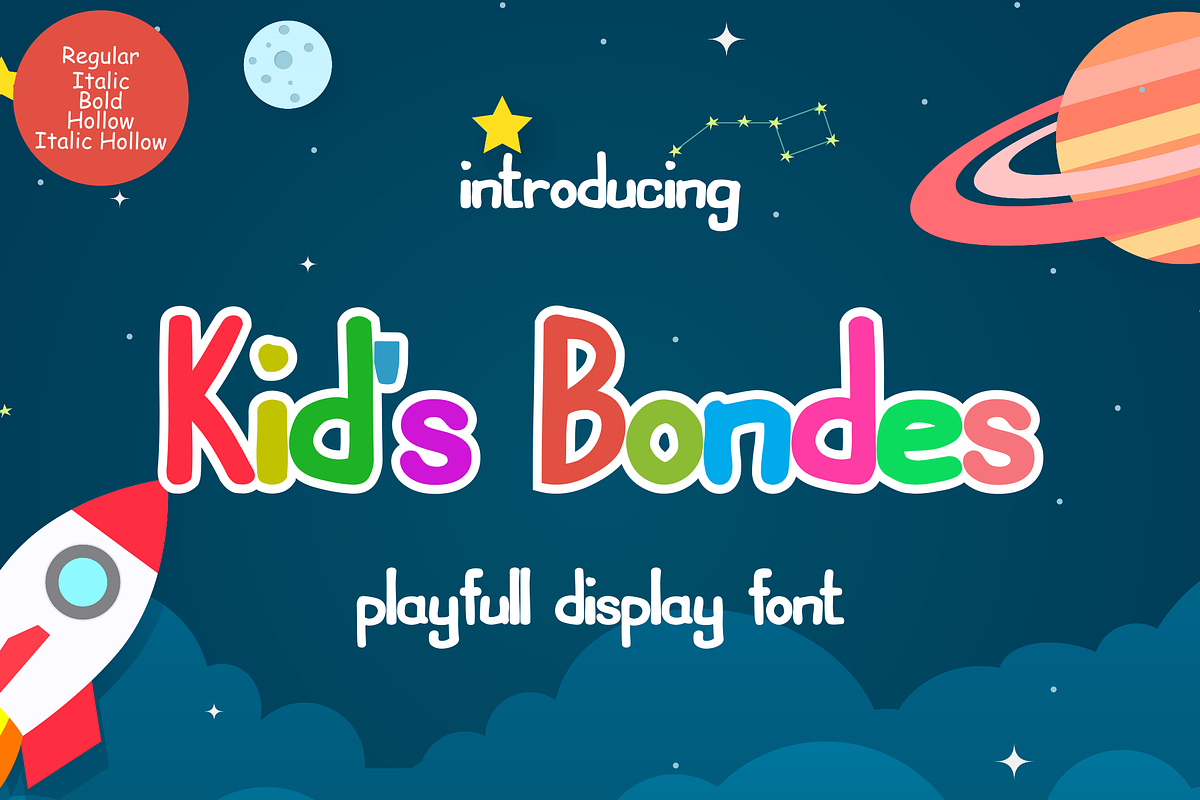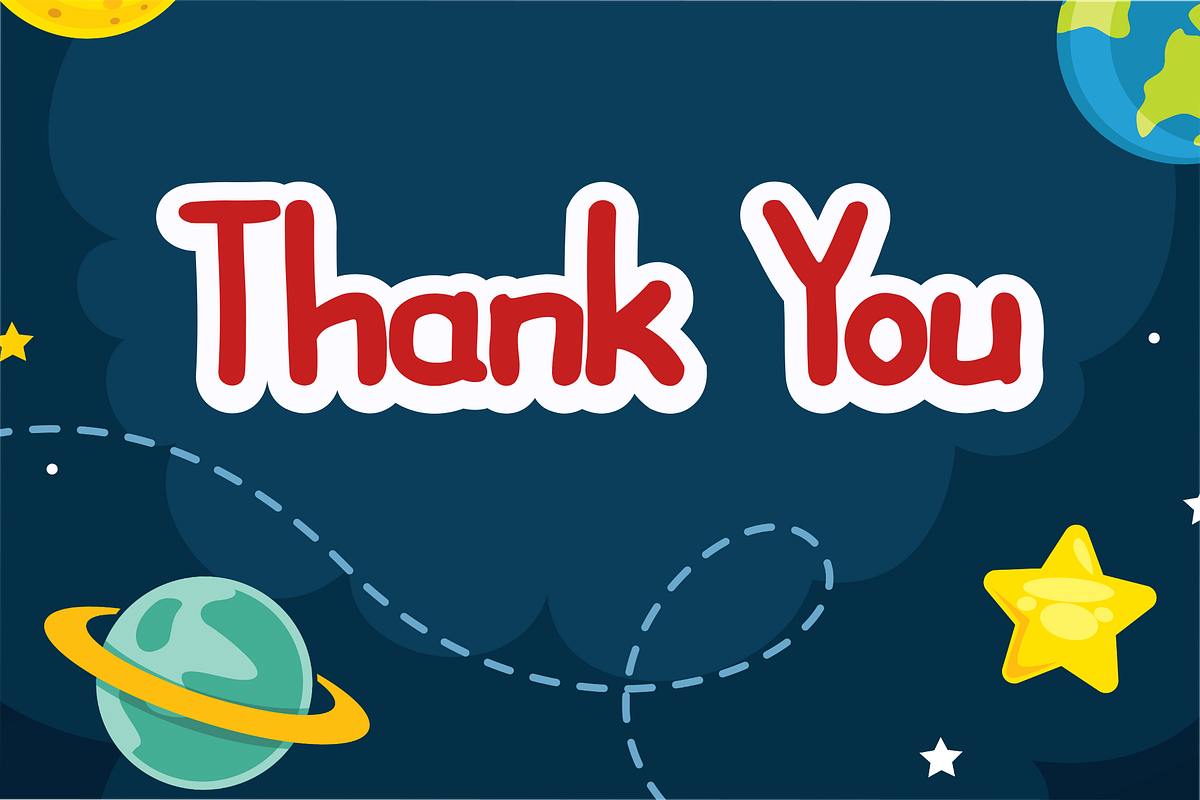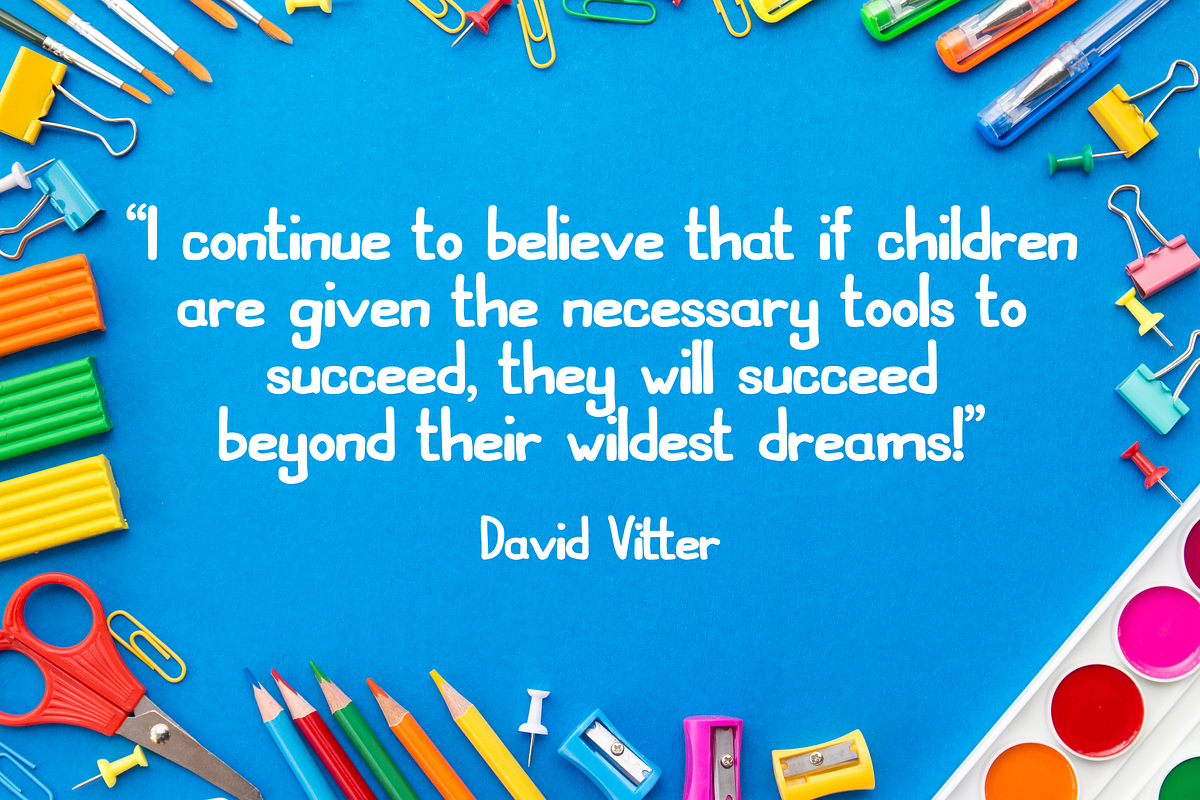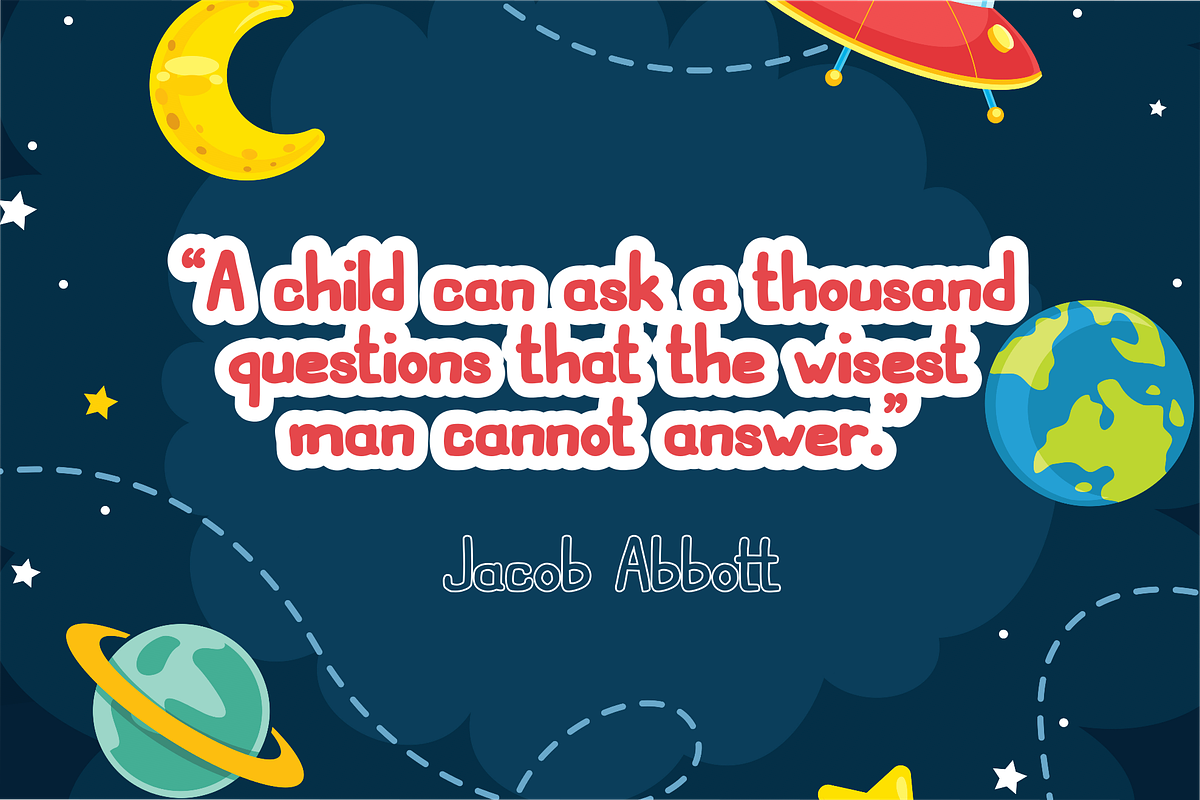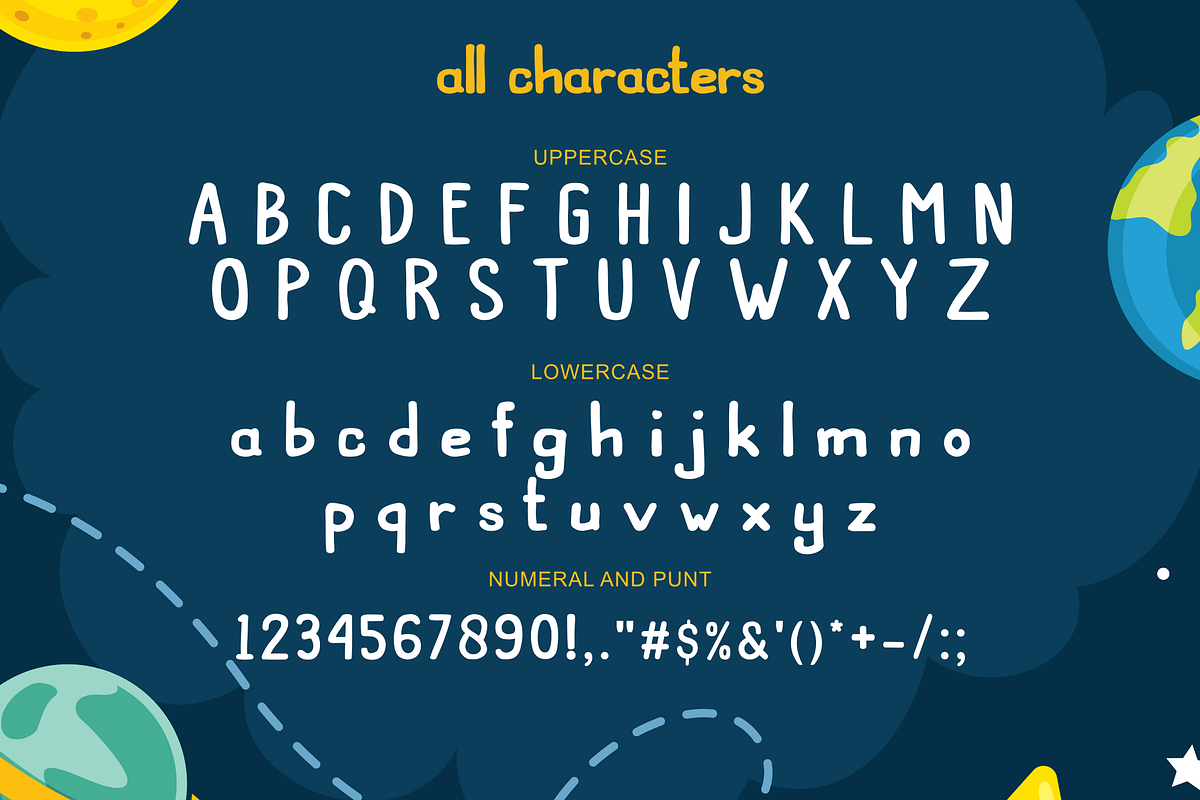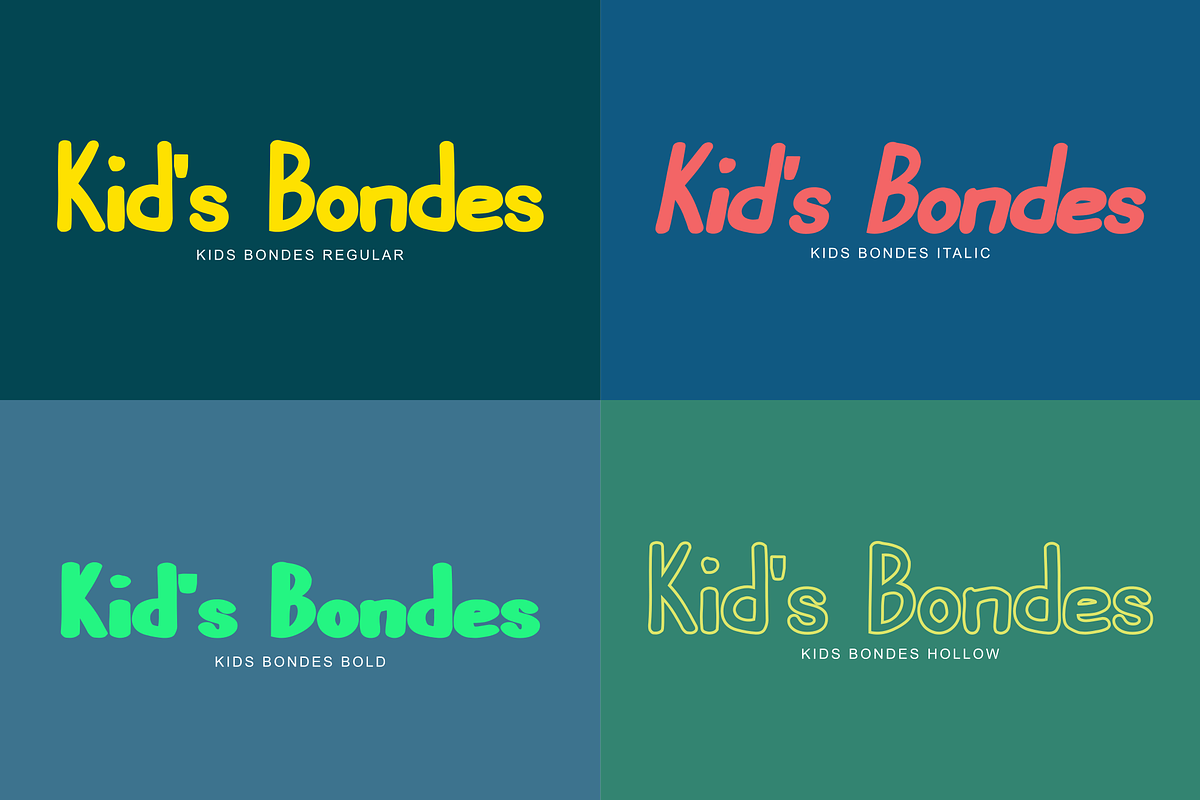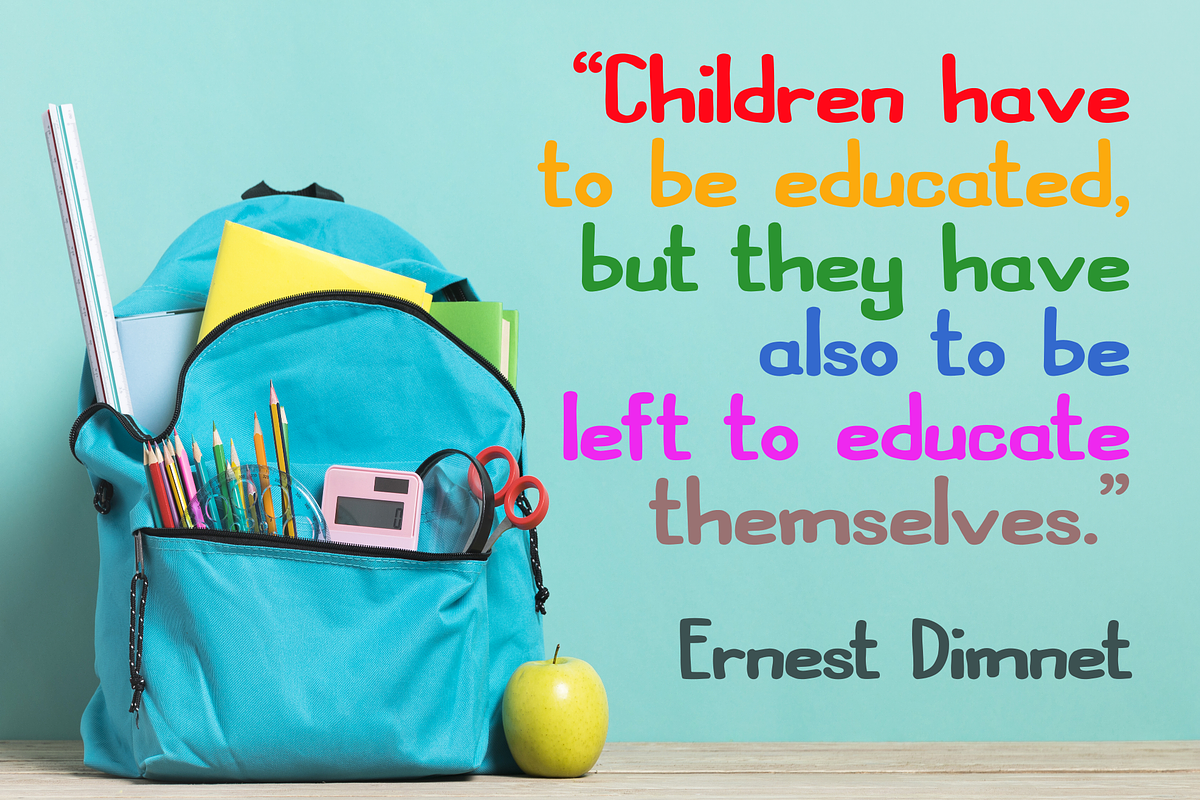
Kids Bondes- Fun Display
Kids Bondes is a natural handwritten font. It's perfect for product packaging, branding projects, magazines, social media posts and more. Get creative with childlike games, and use them to brighten up kids and school projects!
Uppercase Supports international languages that include numerals, punctuation, multiple headings, alternative styles, and can be accessed in the Adobe Illustrator Glyphs panel, or under Stylistic Alternates in Adobe Photoshop OpenType, Adobe InDesign, Corel Draw, and even works in Microsoft Word. TTF, OTF files.